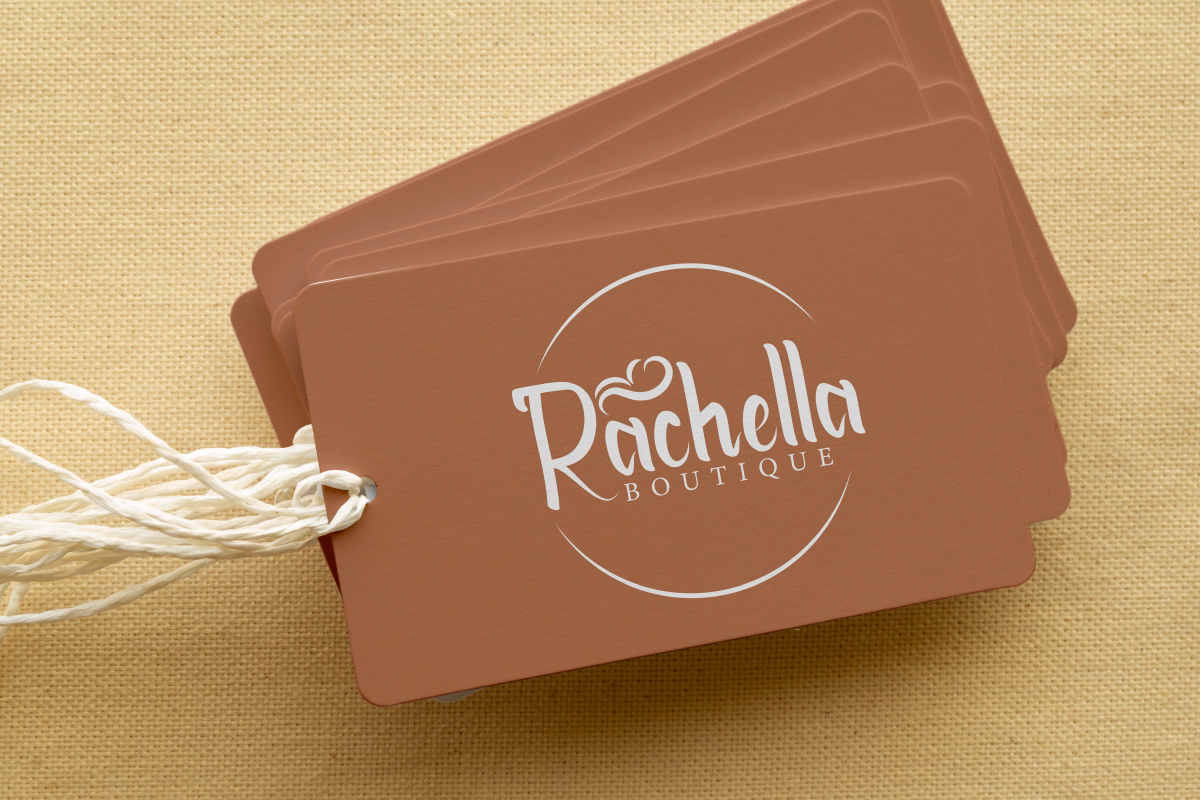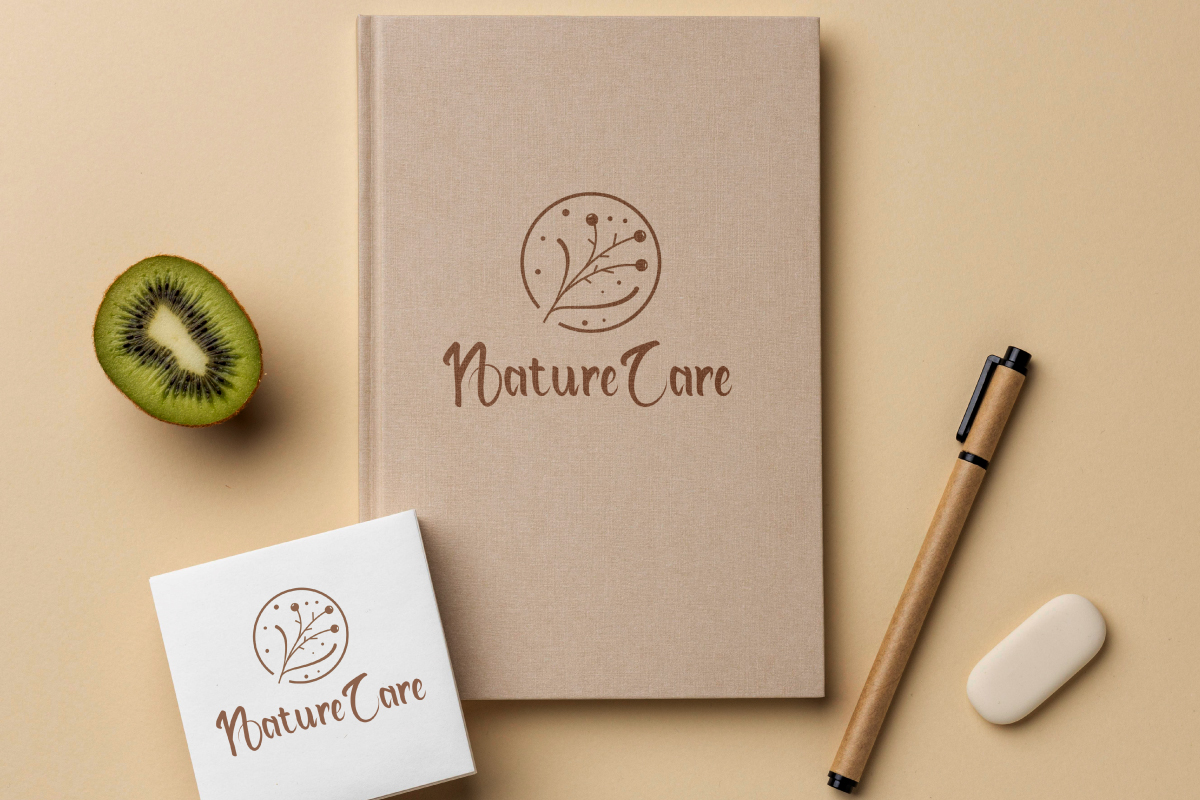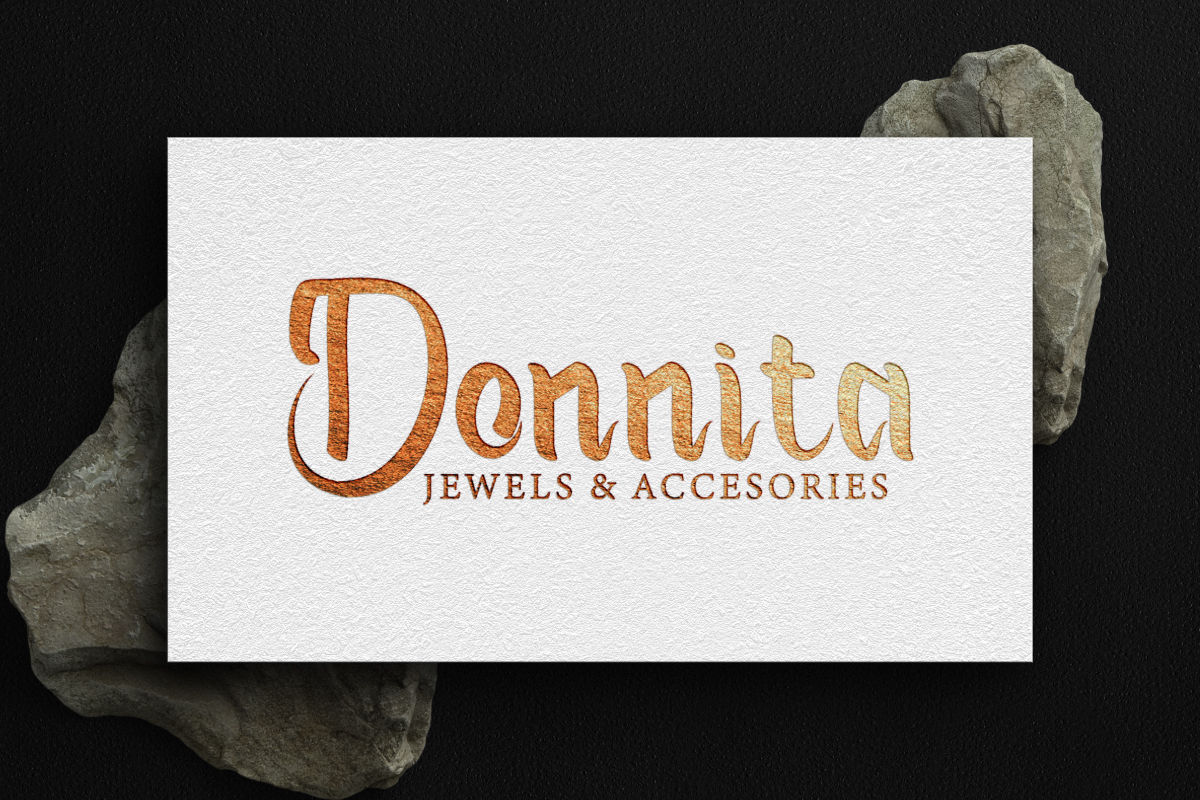
Belimbing Font
Belimbing Script Font
This font will be awesome for many projects (some require extended license) including : branding, logo, stationery, business card, signage, flyer, brochure etc. The theme style of the font is elegant, handmade, old, casual, vintage, stylish, sophisticated and classic brush style. The font will be match for this typeface: wedding, events, florist, gardening, makeup artist, travel, hotel, musician etc
Belimbing Font had been tested Work on PC & Mac. This font has a stunning characters set, perfectly managed with well spaced and kerning. Accessible in the Adobe Illustrator, Adobe Photoshop, Adobe InDesign, even work on Microsoft Word. It’s also PUA Encoded Characters – Fully accessible without additional design software.